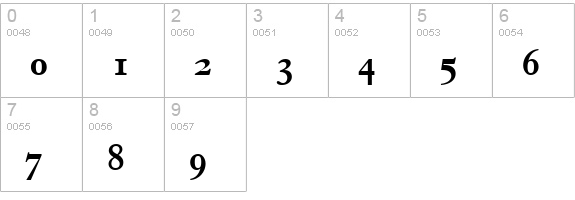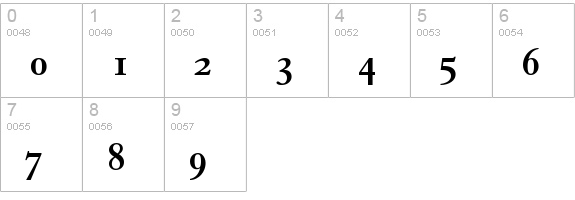
Tiasco OldStyle SSi Bold Old Style Figures Font Details
Tiasco OldStyle SSi Bold Old Style Figures is a strong, high-contrast variant in the Tiasco typeface family \xE2\x80\x94 well suited to headlines, attention-grabbing titles, and strong calls-to-action.
Tiasco OldStyle SSi Bold Old Style Figures font is a timeless masterpiece that captures the essence of traditional typography with a modern twist. Its bold and striking design exudes confidence and sophistication, making it perfect for a wide range of creative projects. With its meticulously crafted old-style figures, this font brings a touch of elegance and class to any text. Whether you're designing a vintage-inspired poster, creating a stylish logo, or crafting an eye-catching headline, Tiasco OldStyle SSi Bold Old Style Figures font is sure to make a lasting impression. Not only does this font possess a captivating charm, but it also offers incredible versatility. Its bold weight ensures legibility even at smaller sizes, making it an excellent choice for body text as well. Its clean lines and balanced proportions create a harmonious composition, effortlessly enhancing the overall aesthetic of your design. One of the best aspects of Tiasco OldStyle SSi Bold Old Style Figures font is that it is freely available to download at FontsMarket.com. This means that you can easily access and utilize this exceptional font in your projects without any cost. It's a wonderful opportunity to enhance your creative work with a high-quality font that exudes elegance and style. So whether you're a professional designer seeking a versatile font or an enthusiast looking to add a touch of sophistication to your personal projects, Tiasco OldStyle SSi Bold Old Style Figures font is the perfect choice. Download it for free at FontsMarket.com and let your creativity soar to new heights.